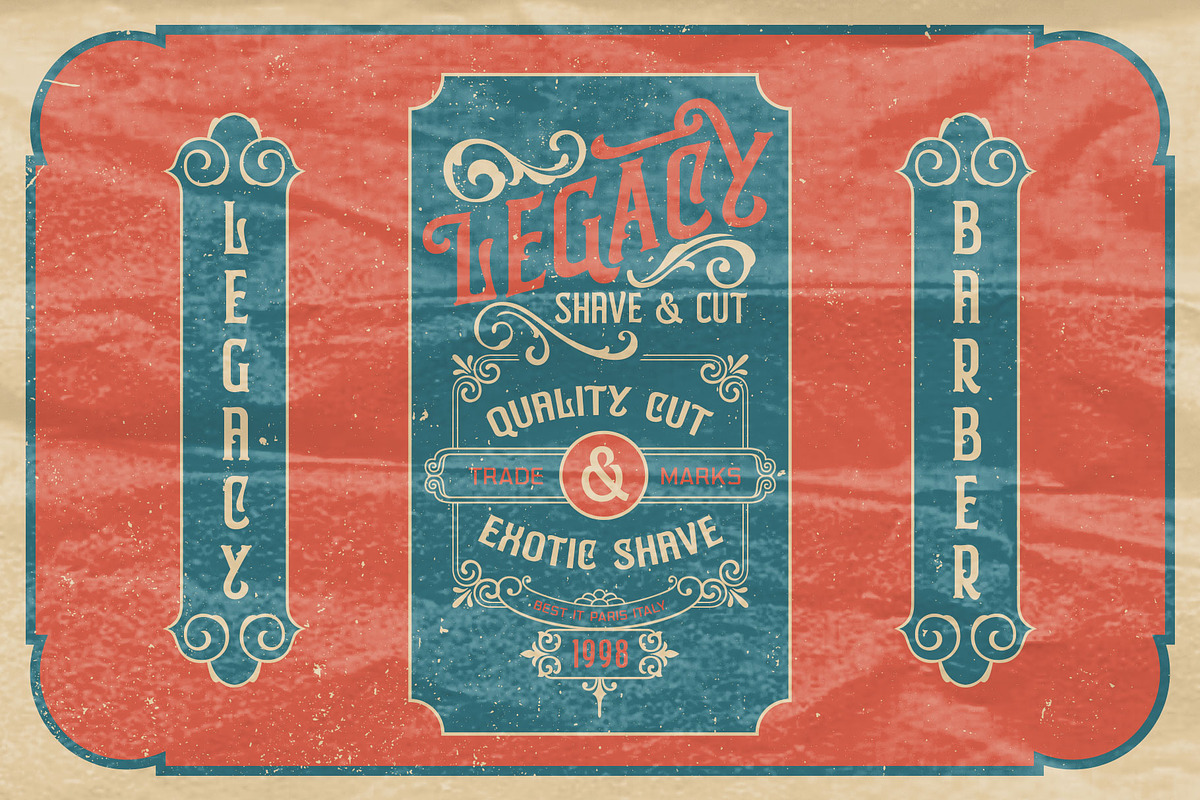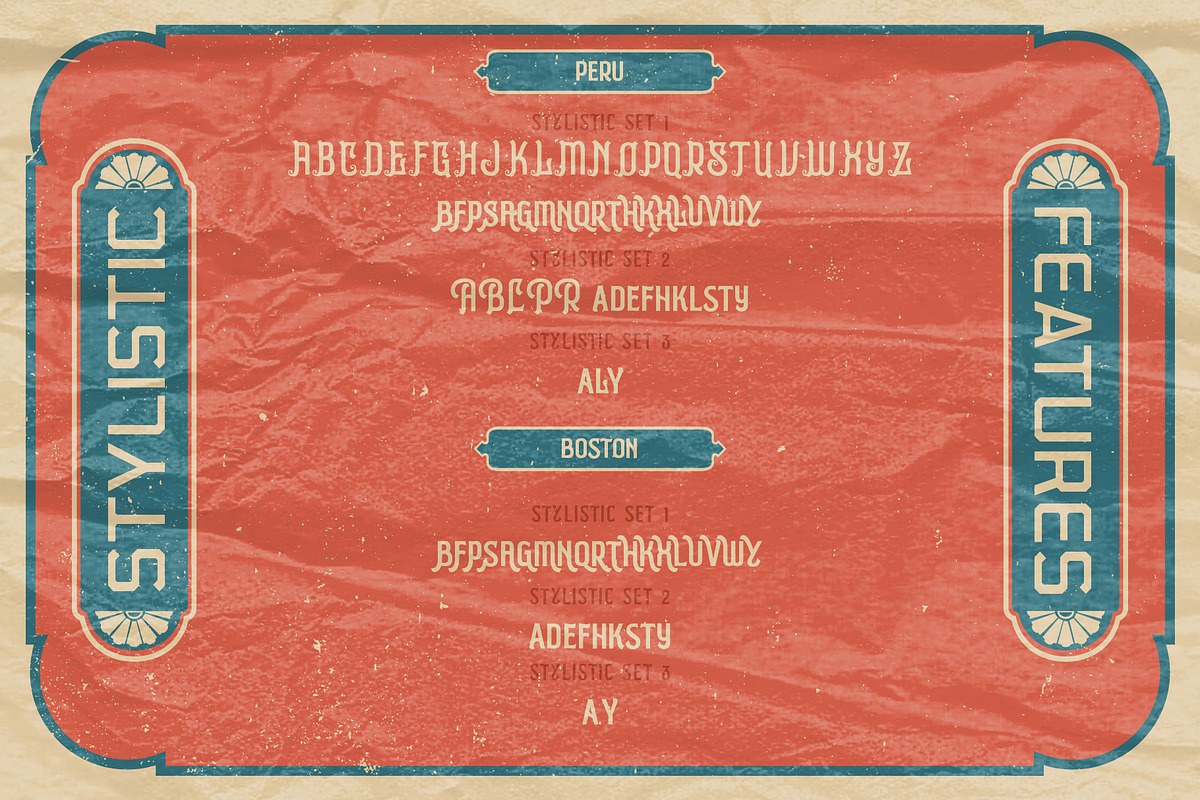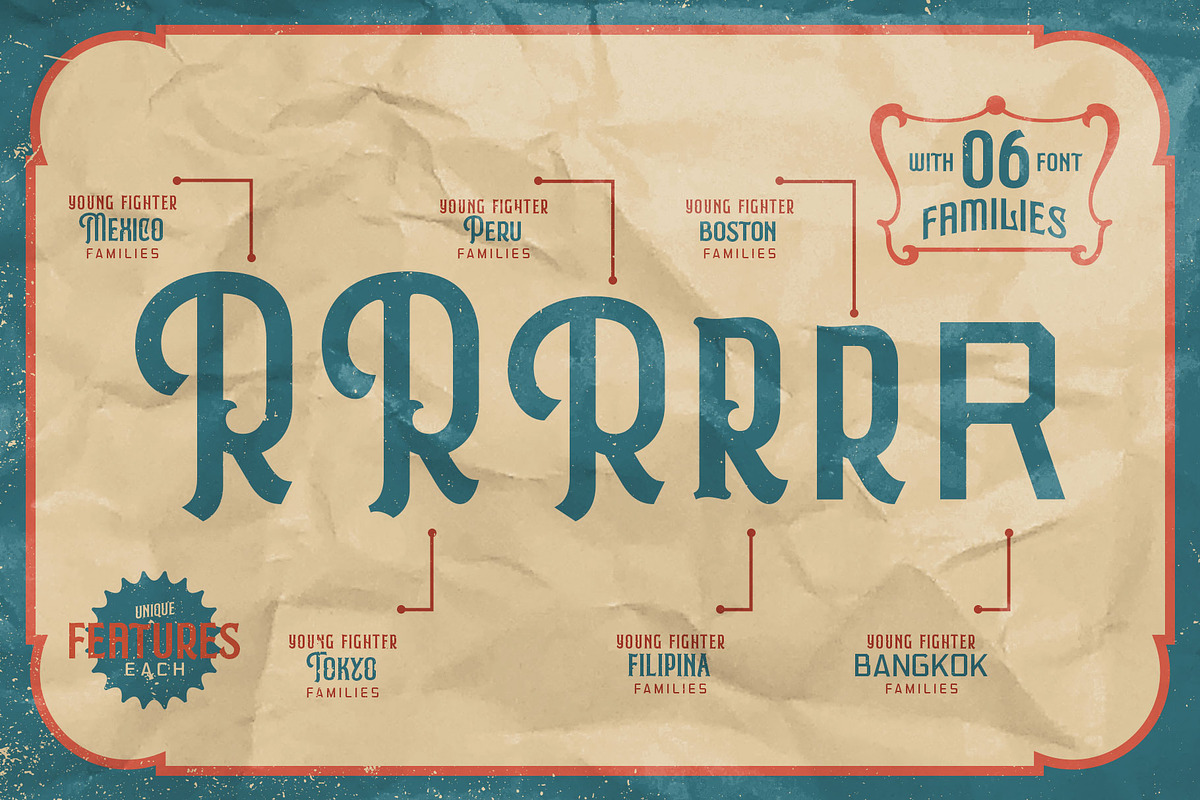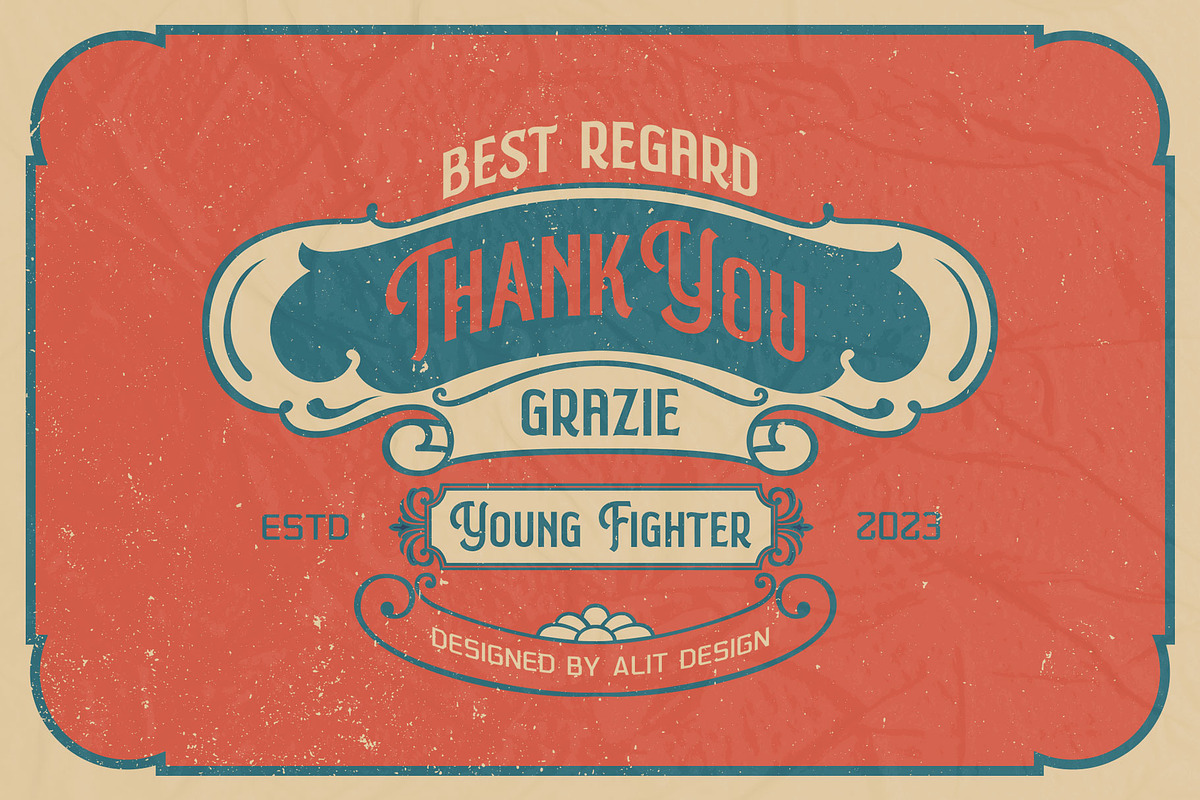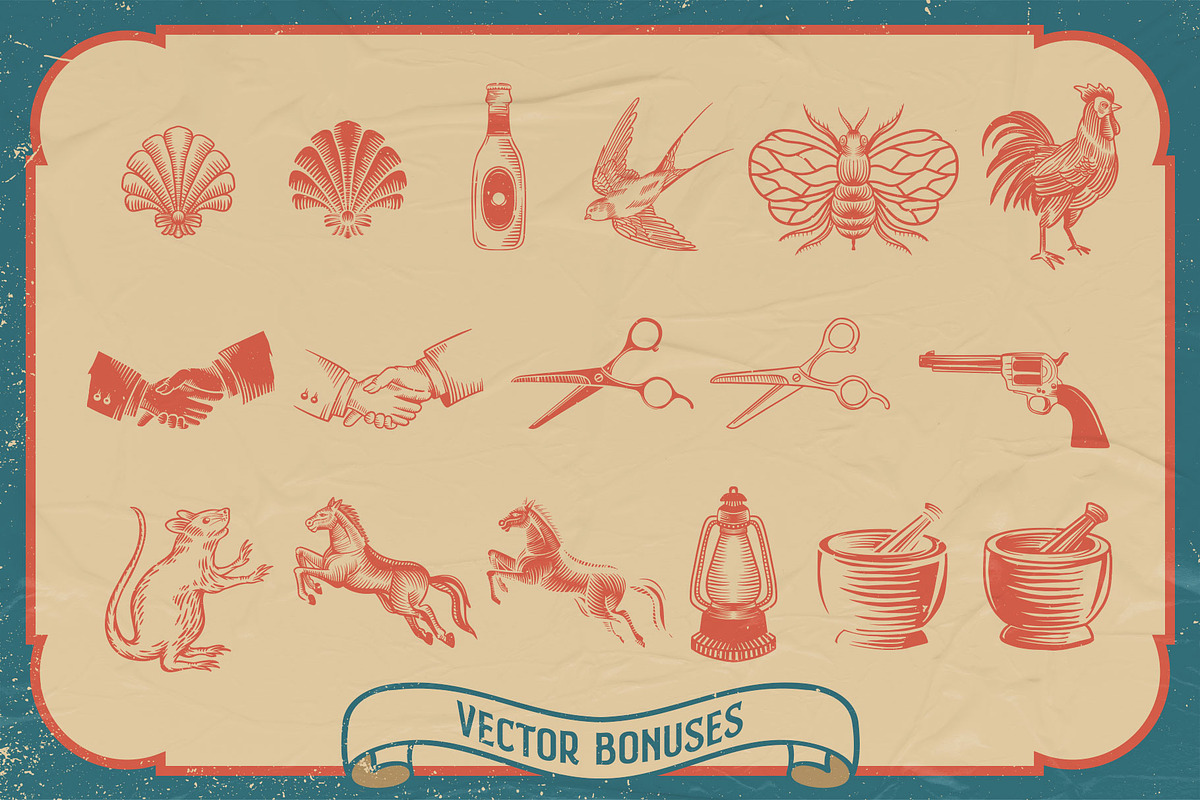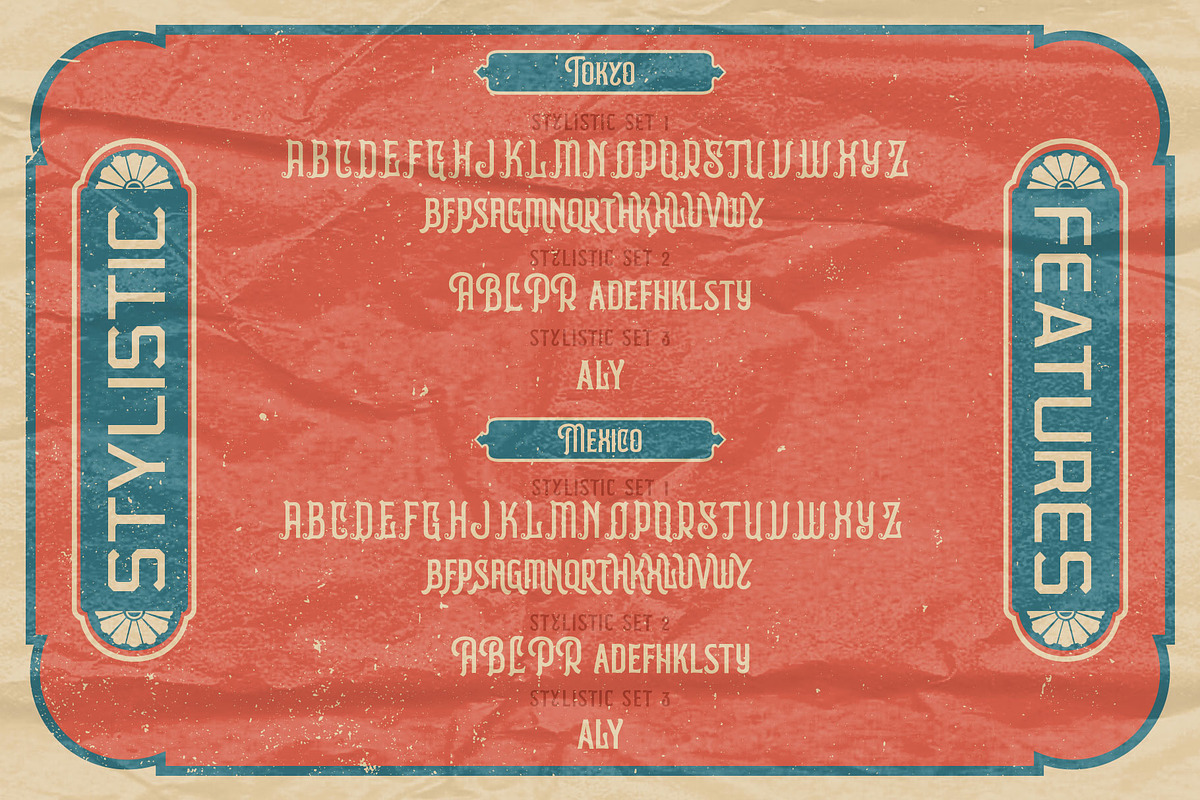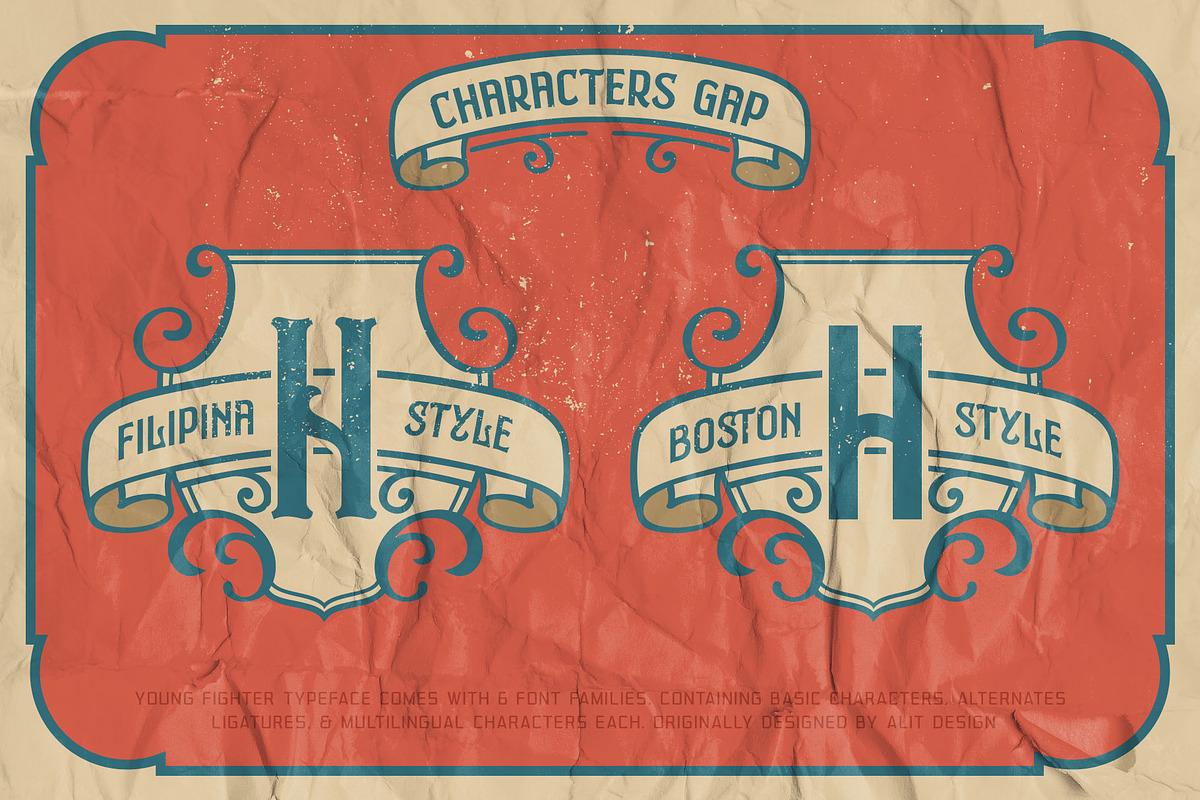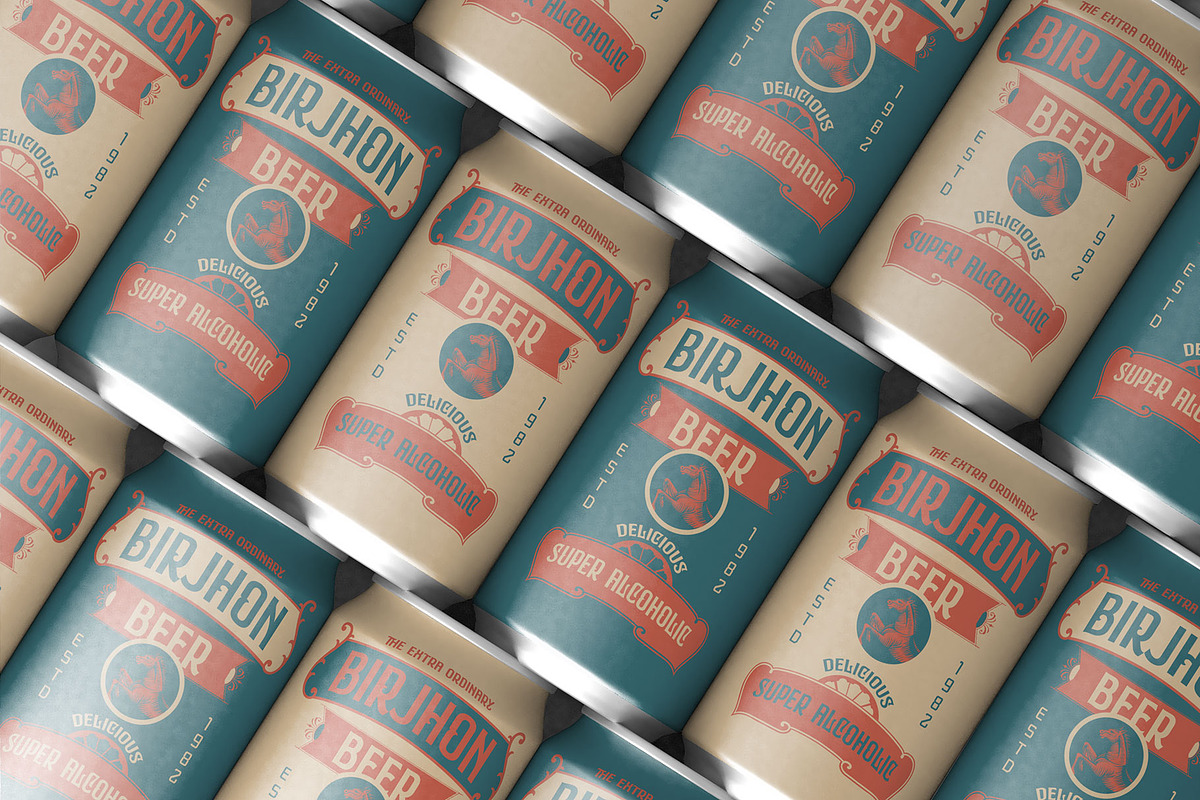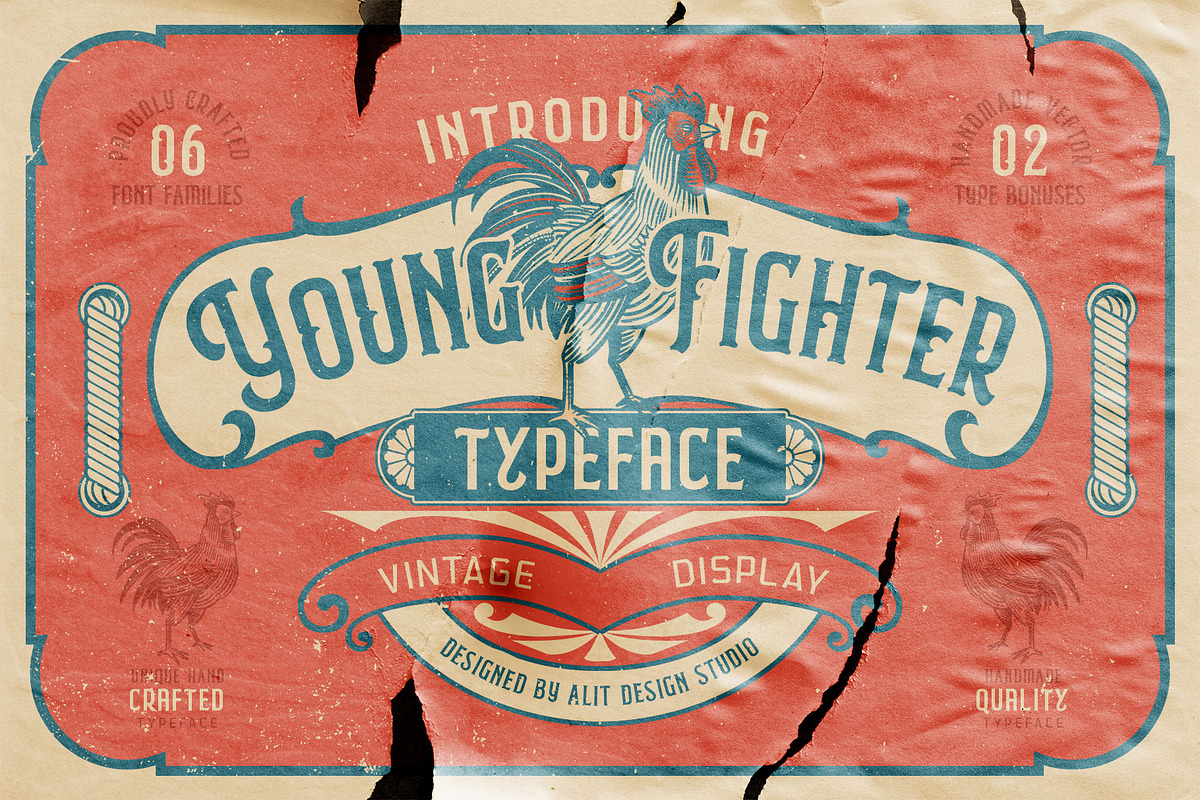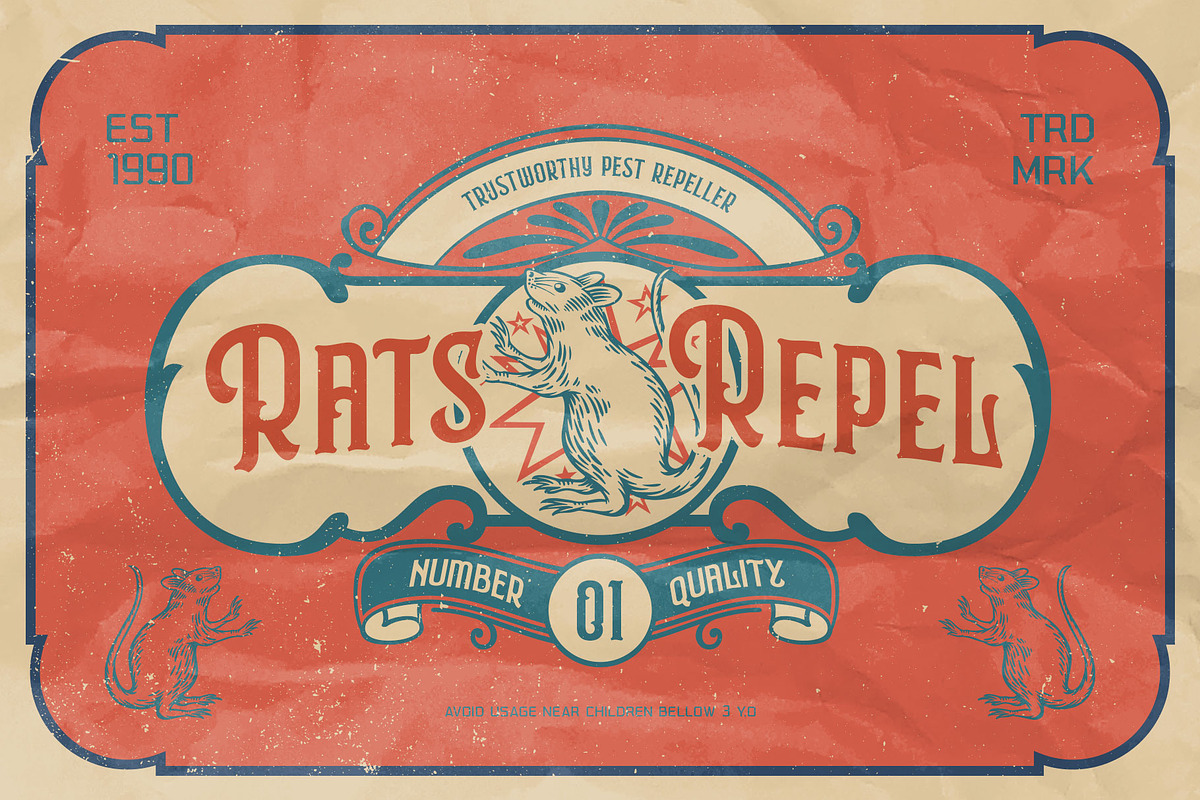
Young Fighter Vintage Display
Introducing "Young Fighter" Font Family – A Vintage Display Typeface with 6 Distinct Styles and Bonus Vector Illustrations!
Embrace the timeless charm of the "Young Fighter" Font Family, a carefully crafted vintage display typeface that brings a touch of nostalgia to your designs. This versatile font family features 6 unique styles, each designed to capture the essence of classic typography while adding a modern twist. With a seamless blend of serif, display, sans serif, and dingbat ornament options, the "Young Fighter" Font Family offers unparalleled versatility for your creative projects.
Serif Style: A classic serif option that exudes elegance and sophistication. Perfect for headlines, book covers, and vintage-themed designs.
Display Style: Make a bold statement with the display style, ideal for attention-grabbing titles and signage. Its distinct characters demand attention while maintaining legibility.
Sans Serif Style: For a modern take on vintage aesthetics, the sans serif style provides a clean and contemporary look. Great for minimalist designs that still evoke a sense of nostalgia.
Dingbat Ornaments: Elevate your designs with a collection of intricate dingbat ornaments. These decorative elements add a touch of finesse and intricacy to your compositions.
Bonus Vector Illustrations: As a special addition, we're including a set of bonus vector illustrations that complement the vintage vibe of the "Young Fighter" Font Family. These illustrations can be seamlessly integrated into your projects for added visual impact.
"Young Fighter" Font Family is perfect for a wide range of creative endeavors such as:
- Retro-inspired branding and packaging
- Vintage-themed posters and flyers
- Editorial layouts and magazine covers
- Logo designs for classic businesses and products
- Signage and storefront displays
- Invitations and event materials
Whether you're designing for print or digital media, the "Young Fighter" Font Family offers the flexibility and character variety to bring your ideas to life in a captivating way.
Evoke a sense of nostalgia while maintaining a contemporary edge with the "Young Fighter" Font Family. Unlock your creative potential and embark on a design journey that bridges the gap between the past and the present.